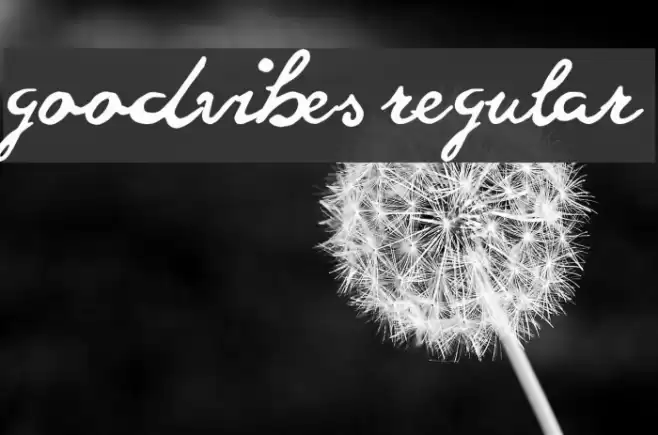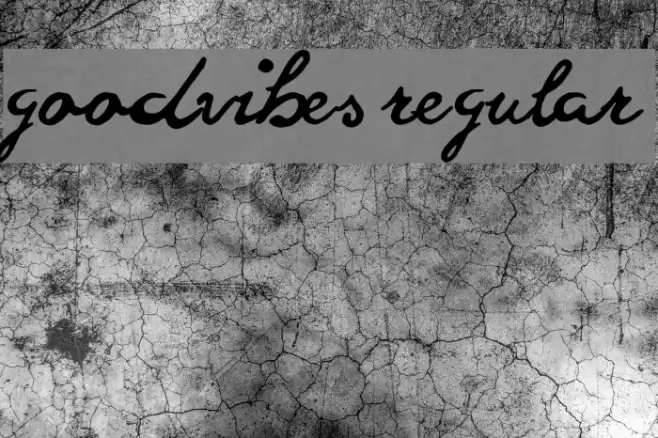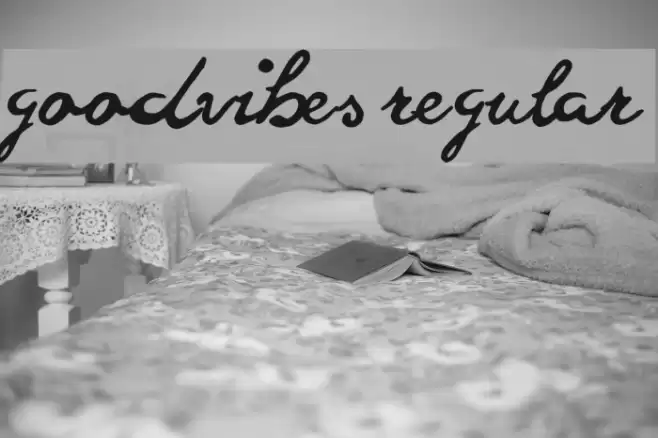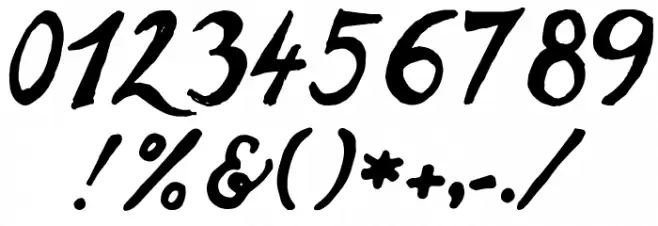
goodvibes regular Font
goodvibes regular Description
This font exudes a lively and energetic vibe with its fluid, cursive script style. The characters are elegantly connected, giving a sense of motion and flow. The uppercase letters are slightly more ornate, with playful loops and curves, while the lowercase letters maintain a consistent rhythm. Numbers and special characters are integrated seamlessly, maintaining the overall aesthetic. The strokes are bold and confident, yet maintain a casual and approachable feel. This font is perfect for projects that require a personal touch or a sense of whimsy.
A lively, cursive script font with bold, flowing strokes from Uncategorized fonts.
- Proposed Projects: Ideal for greeting cards, invitations, branding, and social media graphics.
- Use Case: Logos, Headlines, Invitations